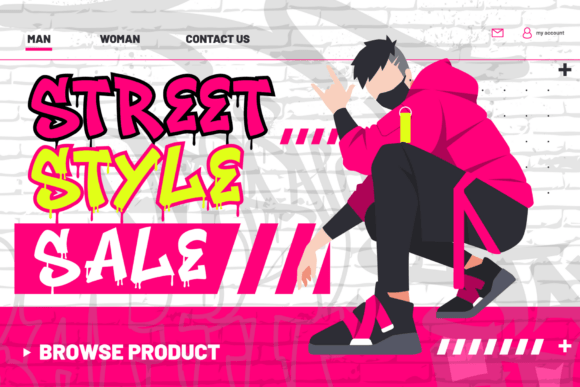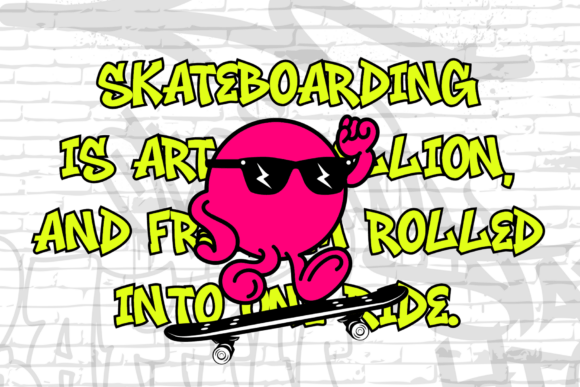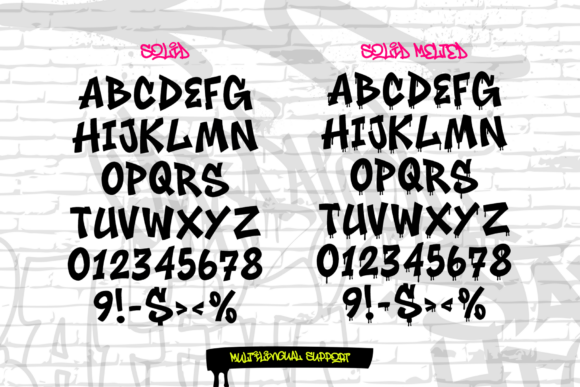
Unlocking the Urban Edge with Noctra Drip Font
As a designer, have you ever found yourself searching for that perfect font to elevate your creative project? Maybe you’re working on a streetwear branding exercise or a music cover art, and you need a font that screams ‘urban cool.’ If so, you’re in luck, because I’m about to introduce you to the game-changing Noctra Drip Font.
Imagine being able to add a touch of gritty, edgy charm to your designs with just one click. With Noctra Drip Font, you can achieve just that. This high-quality, graffiti-infused display font is perfect for designers looking to add a touch of city sophistication to their work. Whether you need a transparent background or a free download, Noctra Drip Font has got you covered.
So, what are you waiting for? Dive into the world of urban design with Noctra Drip Font, and discover a whole new level of creativity and self-expression.
Key Features of Noctra Drip Font
- Unique Water Droplet Design: The Noctra Drip Font features a distinctive water droplet design, perfect for creative projects that require a touch of elegance and sophistication.
- Large Character Set: The Noctra Drip Font includes a large character set, including uppercase and lowercase letters, numbers, and punctuation marks.
- Perfect for Creative Projects: The Noctra Drip Font is ideal for creative projects, such as logos, graphics, and typography-based designs, where a unique and eye-catching font is required.
Honest Review: Noctra Drip Font
As a designer, I’m always on the lookout for high-quality design resources that can elevate my creative projects. Recently, I stumbled upon the Noctra Drip Font, and I’m excited to share my honest review with you.
The Noctra Drip Font is a free download that boasts a stunning, transparent background. The font’s unique design makes it perfect for adding a touch of elegance to your designs. ✨
Here are some of the key features that I love about this font:
- Transparent background that allows for seamless layering
However, I do have a few minor quibbles. ⚠️ The font’s uniqueness can also be a double-edged sword – it may not be suitable for every design project. Additionally, the font’s design can be quite bold, so be mindful of its use in more subtle designs.
Overall, I’m thoroughly impressed with the Noctra Drip Font. Its high-quality design and transparent background make it a valuable addition to any designer’s toolkit. Whether you’re working on a creative project or just looking to add some flair to your designs, the Noctra Drip Font is definitely worth checking out.
Noctra Drip Font
Noctra Drip Font is a high-quality design resource ideal for creative projects requiring a unique and eye-catching typography. With a transparent background, this font can be easily integrated into various design platforms.
To get the most out of Noctra Drip Font, use it for headings and titles in your designs. This font is particularly suitable for:
- Marketing materials, such as brochures and flyers
- Web design, including website headers and footers
- Graphic design, including posters and social media graphics